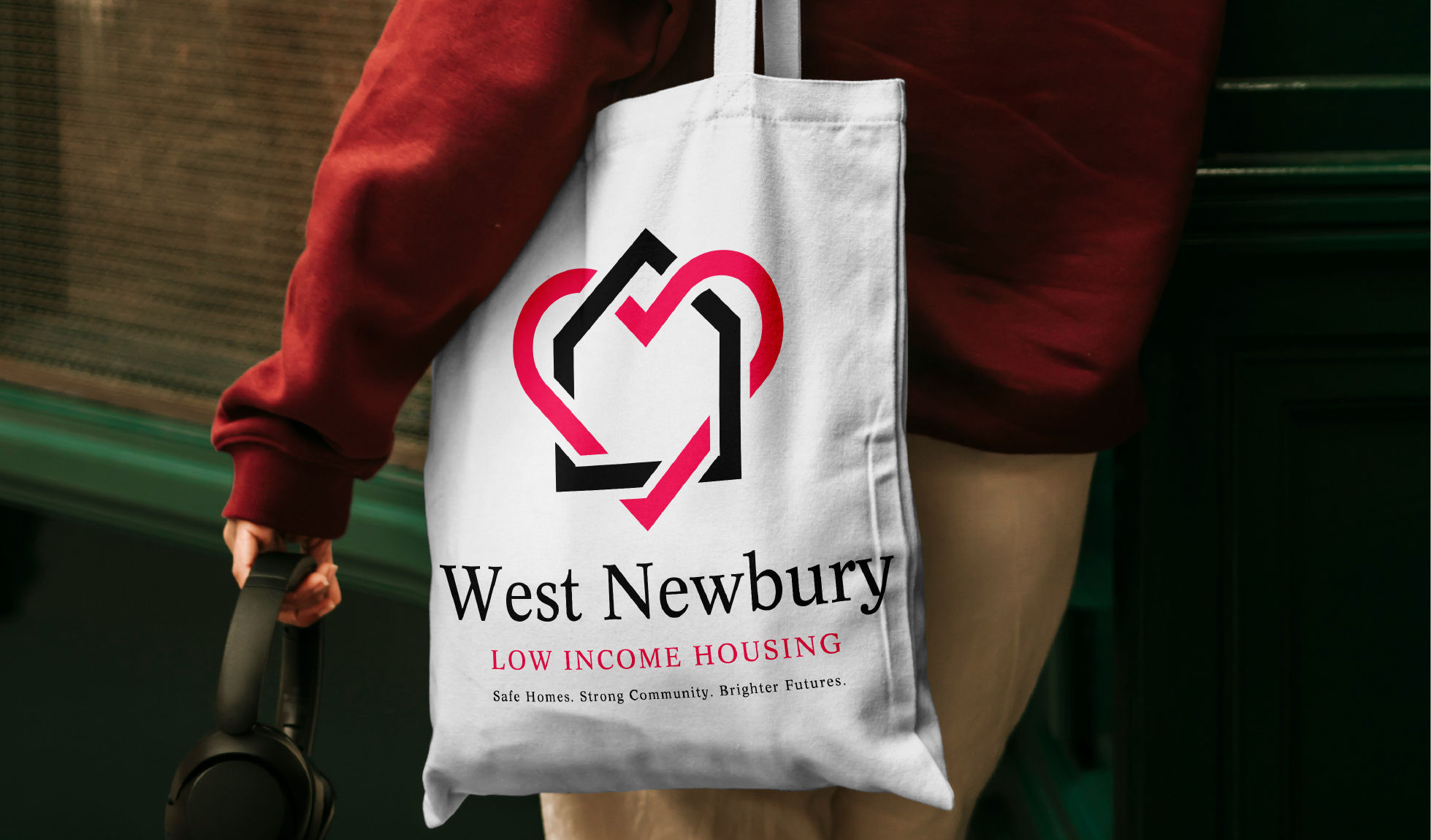
| Smart Fonts from Berthold for Brand Development |
| Brand development typefaces should support the brand logo – but not overpower it. They’ll be delivering content about the brand, its products and services, so the designs should be highly legible and perform equally well on-screen and in print... |